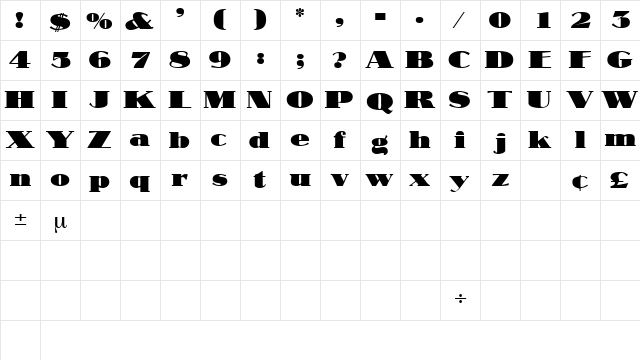
MakarDisplaySSK Regular
Design Context for MakarDisplaySSK Typeface
MakarDisplaySSK is built around its visual character rather than neutral utility — its distinctive forms are designed to make an impression at display sizes.
Font Pairing: Pair with a clean neutral sans-serif for body copy to let MakarDisplaySSK's character lead without overwhelming the composition.
Pro Tip: Treat MakarDisplaySSK as the centrepiece of your typographic hierarchy. One strong heading set in a decorative face can carry an entire layout.